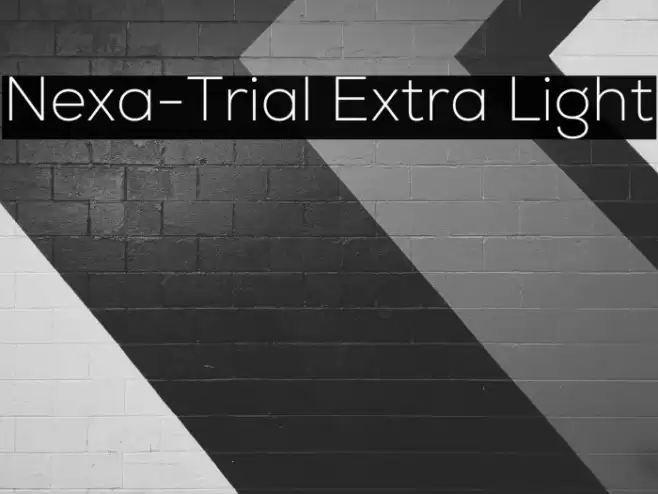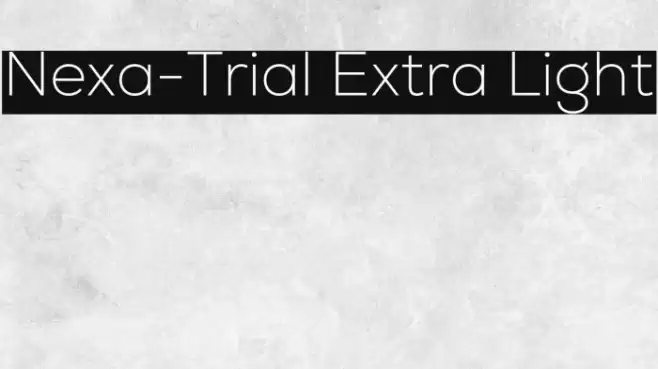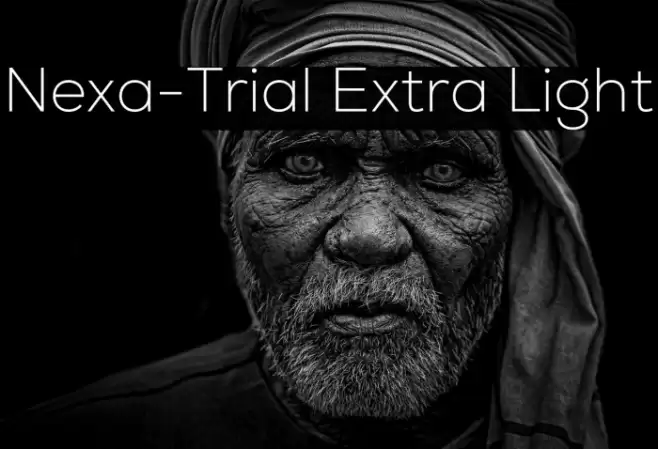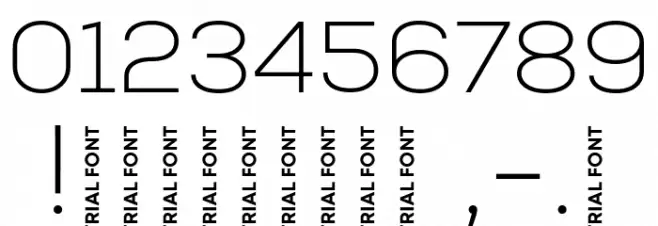
Nexa-Trial Extra Light Font
Nexa-Trial Extra Light Description
This font features a clean and modern sans-serif design with a geometric structure. The characters are evenly spaced, providing a balanced and harmonious appearance. The strokes are consistent and thin, contributing to its light and airy feel. The font maintains a uniform line width throughout, enhancing its minimalist aesthetic. It is highly legible, making it suitable for both digital and print media. The simplicity and elegance of the design make it versatile for various applications, from branding to web design.
A clean, modern sans-serif font with a geometric and minimalist design from Regular fonts.
- Proposed Projects: Ideal for branding, web design, corporate materials, and minimalist design projects.